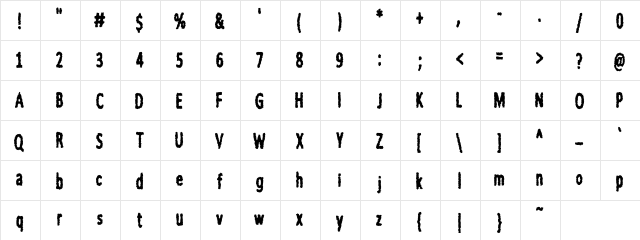
nWorder Regular
Design Context for nWorder Typeface
nWorder takes a measured approach to typography — its balanced proportions and neutral character make it a reliable workhorse for both digital and print work.